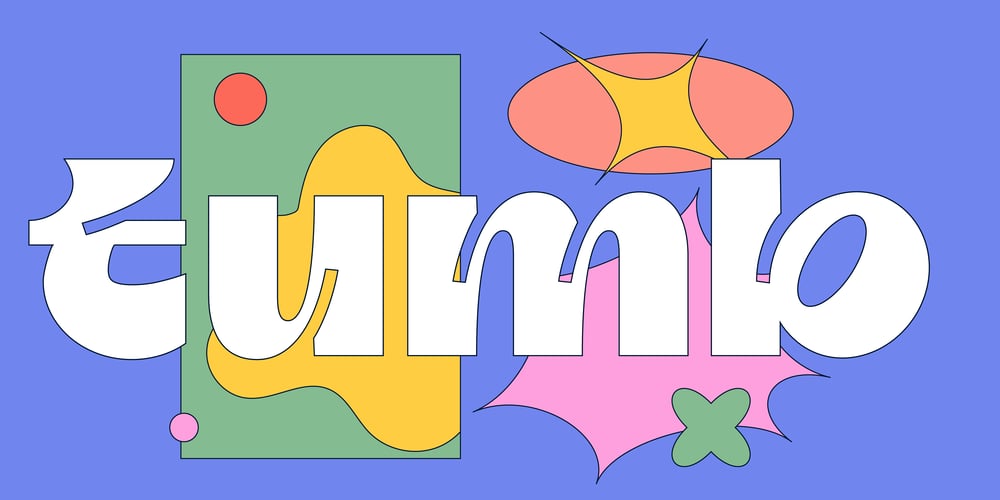
Tumb Font Family was designed by Harbor Bickmore and published by That That Creative. Tumb contains 1 styles and family package options. Tumb is a bold quirky modern display font with stylized ink traps. It is perfect for giving your project a fun sophistocated playfulness. Perfect for headlines on posters, Instagram, print projects, branding, and logo design.